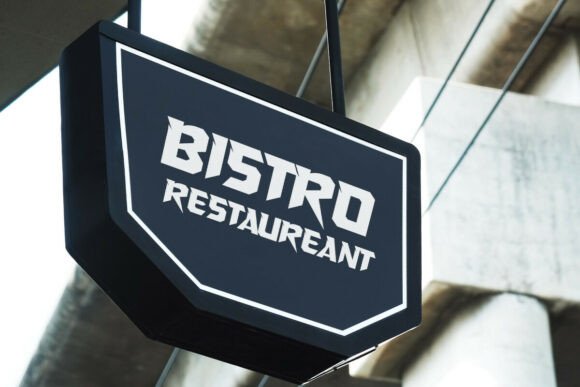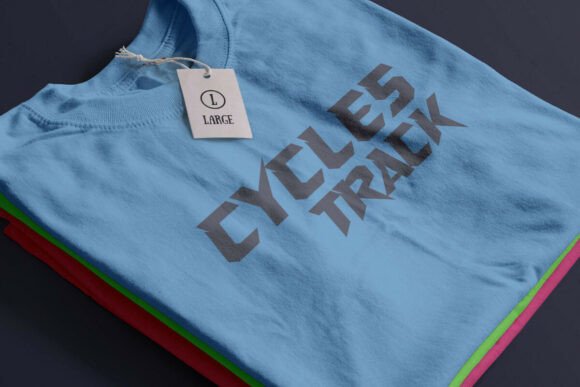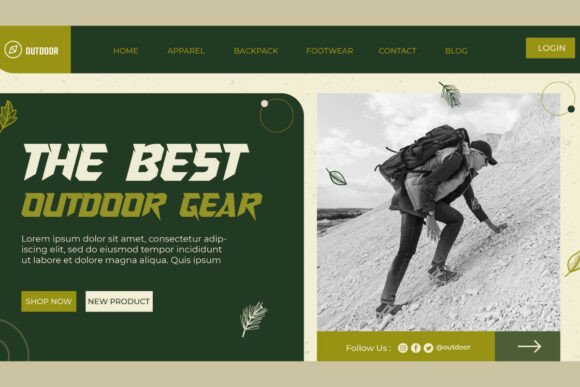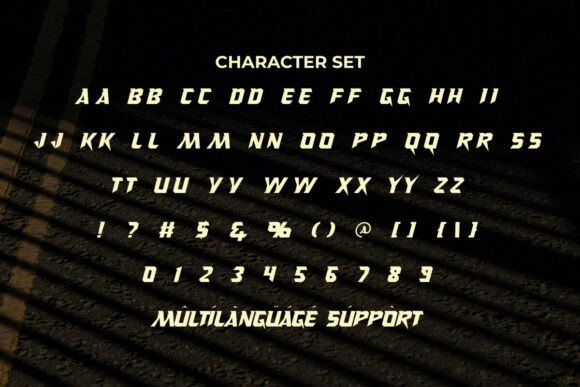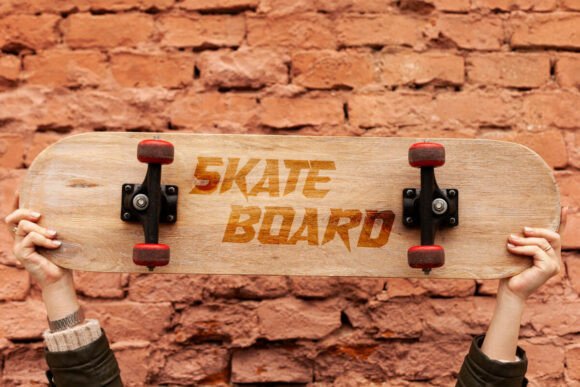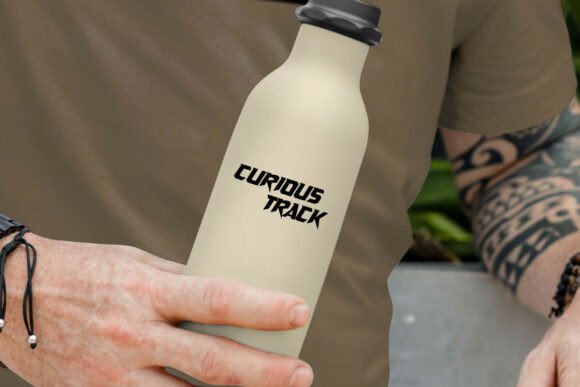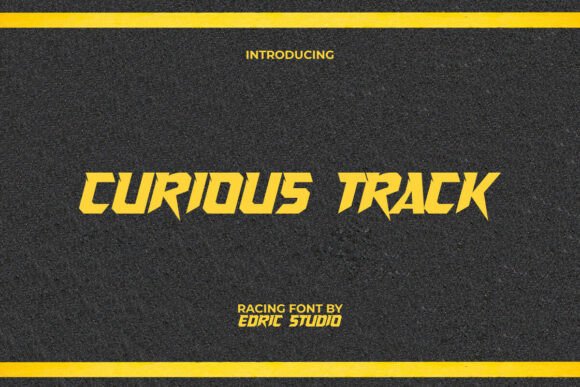
Introducing Curioustrack Font: The Ultimate Bold and High-Speed Racing Typeface
In the world of graphic design, typography plays a crucial role in capturing the essence of a brand or project. When it comes to creating high-impact visuals, a bold and attention-grabbing font is essential. This is where Curioustrack Font comes into play – a sleek, modern, and futuristic typeface designed to elevate your brand identity. In this article, we’ll dive into the features, benefits, and uses of Curioustrack Font, making it a must-read for designers, crafters, and anyone looking to make a statement with their visual creations.
Design and Aesthetic
Curioustrack Font boasts a bold and high-speed racing design, characterized by dynamic slants and sharp precision. Its futuristic aesthetic is perfect for creating a sense of energy, movement, and excitement. The font’s sleek and modern edge makes it an ideal choice for a wide range of applications, from sports-related branding to creative projects that require a bold and attention-grabbing look.
- Complete set of ALL CAPS letters: Both uppercase and lowercase forms are available, ensuring versatility and flexibility in your designs.
- Numbers, punctuation, and symbols: The font comes equipped with a comprehensive set of characters, making it suitable for a variety of design applications.
- Bold and high-speed racing design: The font’s dynamic slants and sharp precision create a sense of energy and movement.
- Futuristic aesthetic: Curioustrack Font’s modern edge makes it perfect for high-impact visuals and creative projects.
Uses and Applications
Curioustrack Font is an incredibly versatile typeface, suitable for a wide range of applications, including:
- Billboards: Make a statement with bold and eye-catching headlines.
- Blogs and branding labels: Establish a strong brand identity with a unique and recognizable font.
- Brochures, covers, and flyers: Add a touch of energy and excitement to your marketing materials.
- Headers, logos, and packaging: Create a lasting impression with a bold and memorable font.
- Posters, signage, and stickers: Perfect for creating eye-catching visuals that grab attention.
- T-shirt prints and merchandise: Add a unique touch to your apparel and products.
Ideal Industries and Projects
Curioustrack Font is particularly well-suited for industries and projects that require a bold and energetic visual identity, such as:
- Sports-related branding: Perfect for sports teams, events, and equipment brands.
- Automotive graphics: Ideal for car brands, racing teams, and automotive-related projects.
- Clothing brands and fashion: Add a touch of energy and excitement to your fashion brand.
- Content creators and energy drinks: Perfect for brands that require a bold and attention-grabbing visual identity.
- Films, games, and graphic design: Curioustrack Font is a great choice for creative projects that require a unique and memorable font.
- Gyms or fitness centers and handicrafts: Ideal for businesses that require a bold and energetic visual identity.
- Jersey printing and menswear: Perfect for sports teams and fashion brands.
- Merchandise and publishing: Add a unique touch to your products and publications.
- Racing events and restaurants: Curioustrack Font is a great choice for events and businesses that require a bold and attention-grabbing visual identity.
- Outdoor and adventure-related projects: Perfect for brands that require a bold and energetic visual identity.
Curioustrack Font is a bold and high-speed racing typeface designed to elevate your brand identity and create high-impact visuals. Its futuristic aesthetic, dynamic slants, and sharp precision make it a perfect choice for a wide range of applications, from sports-related branding to creative projects. With its complete set of ALL CAPS letters, numbers, punctuation, and symbols, Curioustrack Font is a versatile and practical choice for designers, crafters, and anyone looking to make a statement with their visual creations.